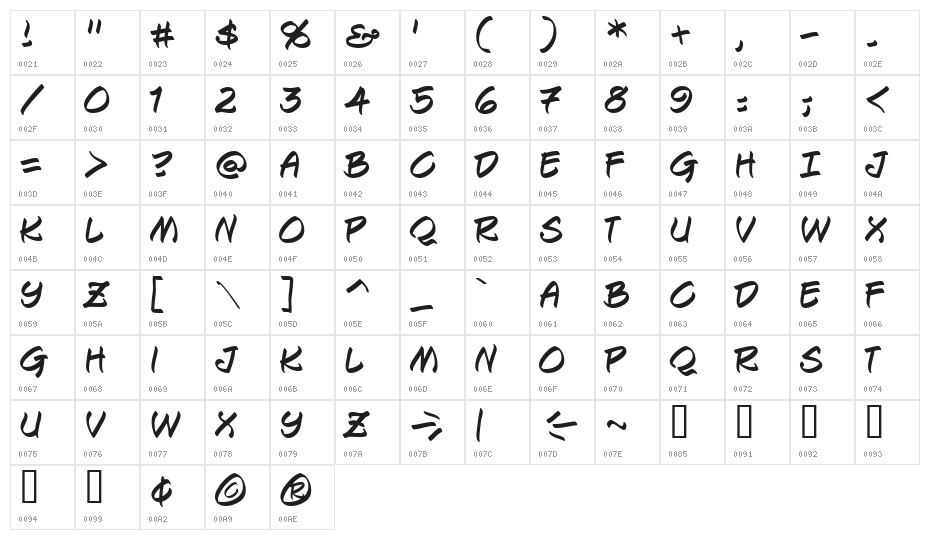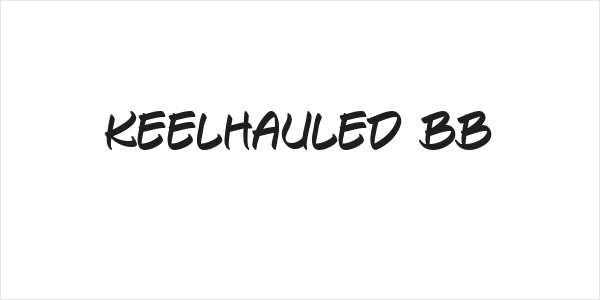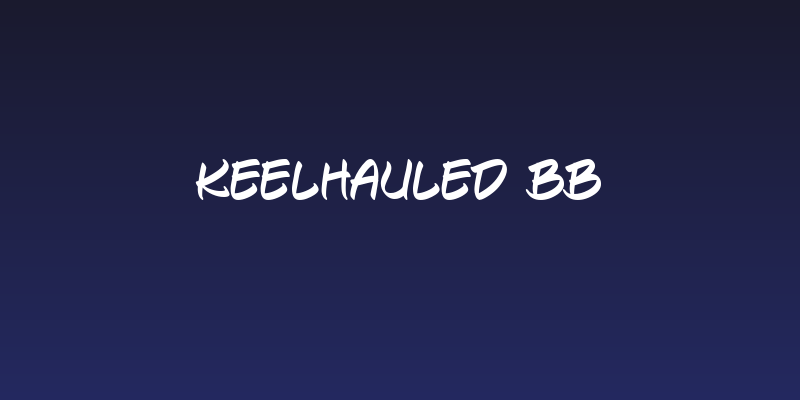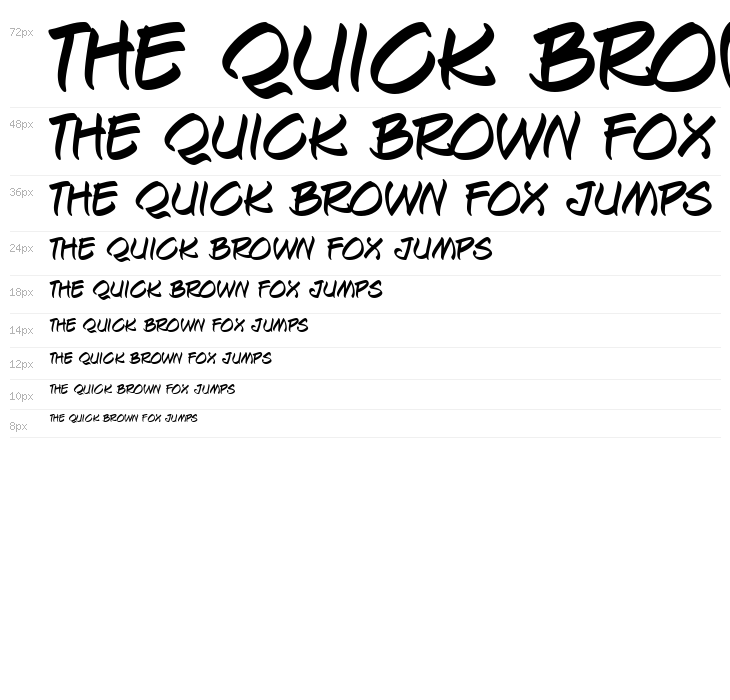
Keelhauled BB Font
Keelhauled BB Description
This font features a bold, energetic script style with a hand-drawn appearance. The letters are slightly slanted, giving a dynamic and lively feel. The strokes are thick and consistent, providing a strong visual impact. The characters have a playful yet assertive look, making them suitable for attention-grabbing designs. The numbers and special characters maintain the same energetic style, ensuring a cohesive look across all text elements.
| Proposed Projects | Ideal for branding, posters, and creative projects that require a bold, dynamic touch. |